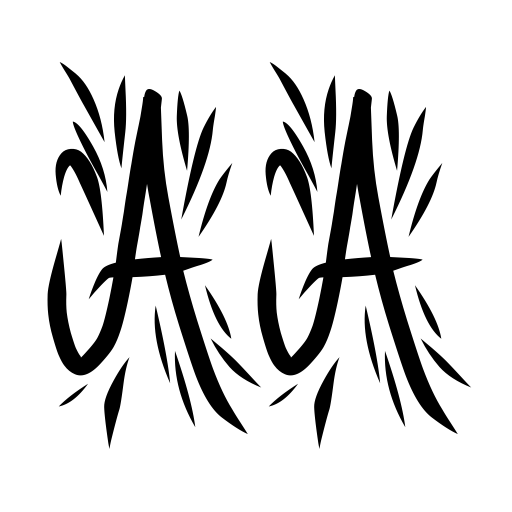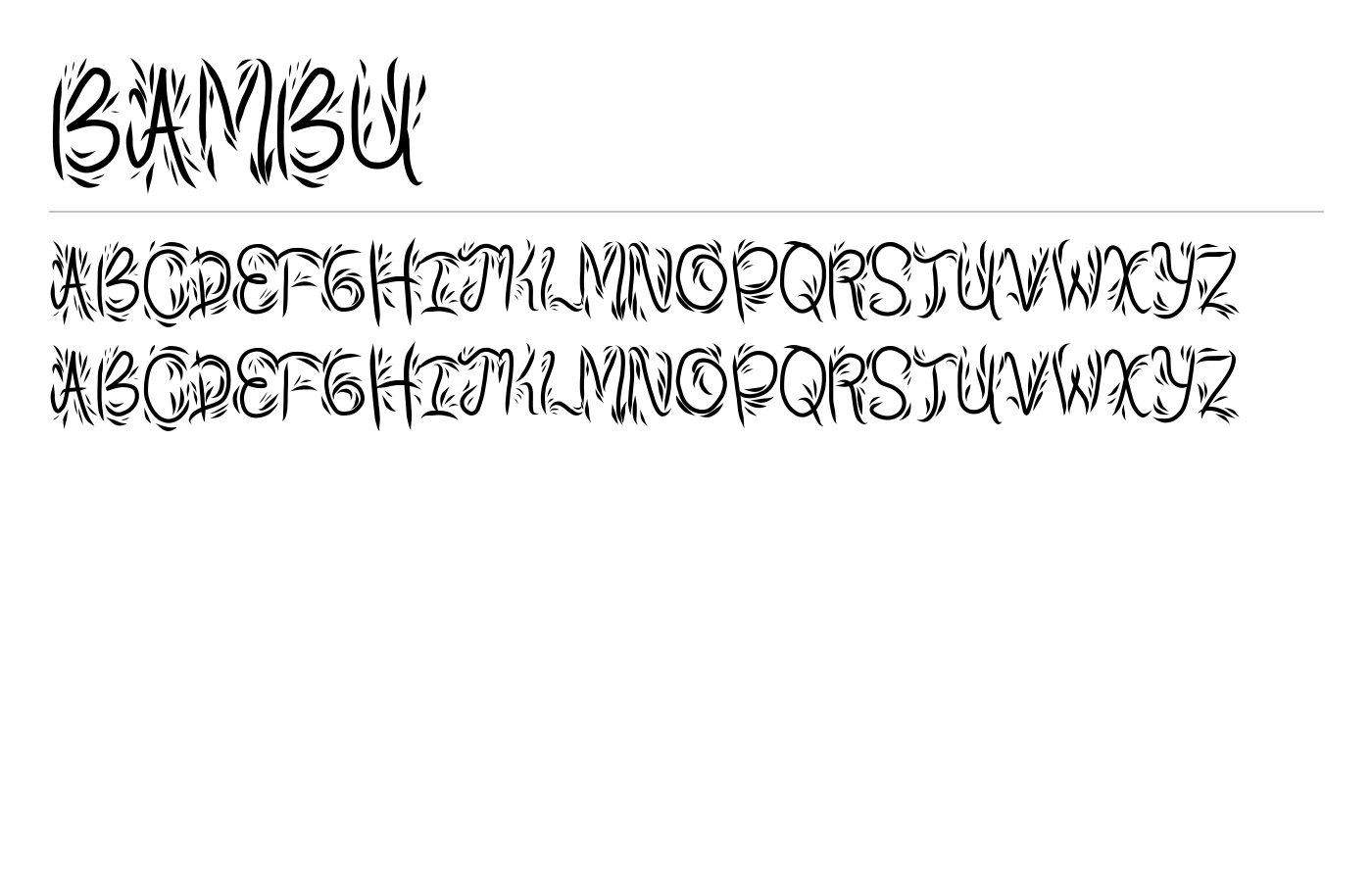
Bambu is a highly decorative, display-style font featuring narrow, stylized letterforms inspired by bamboo stalks, with sharp, organic strokes that give it a natural yet edgy appearance. Its tall, condensed shapes and intricate detailing make it ideal for creative branding or headlines where a unique and artistic touch is desired. This font works best in designs seeking a bold, nature-inspired vibe with a modern flair.
| Designer | max infeld |